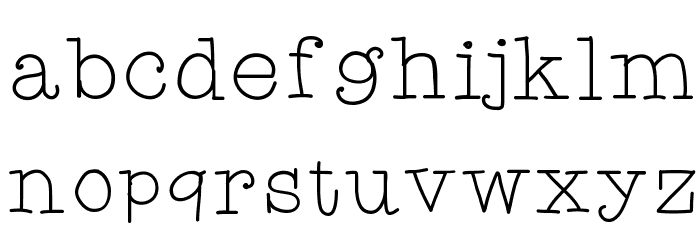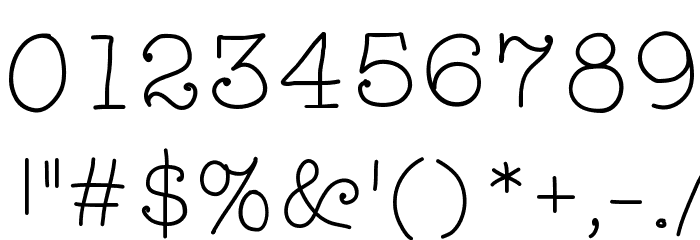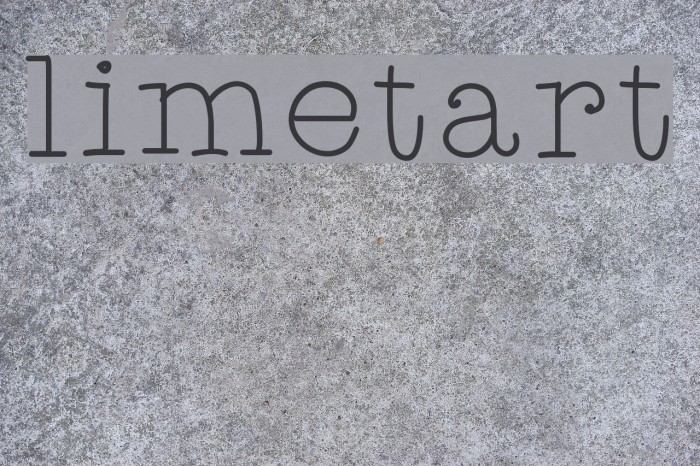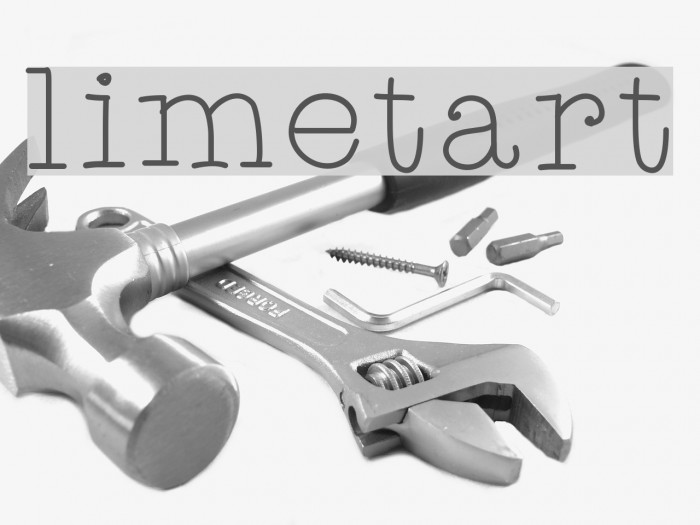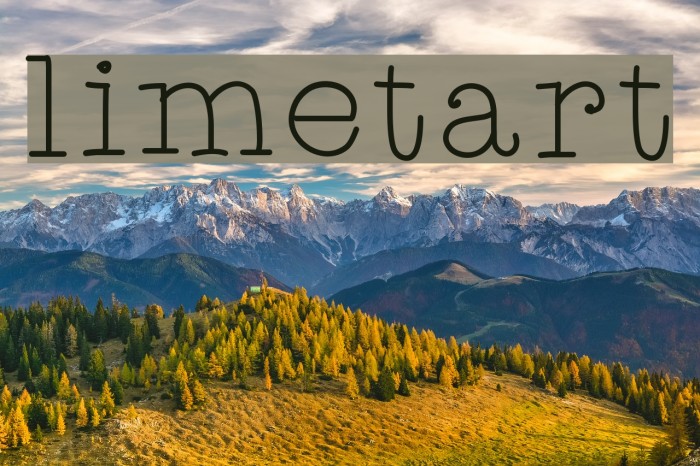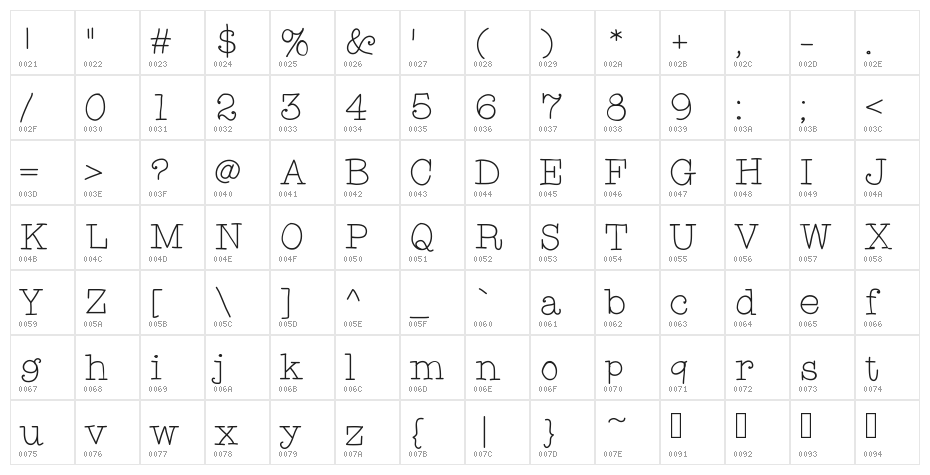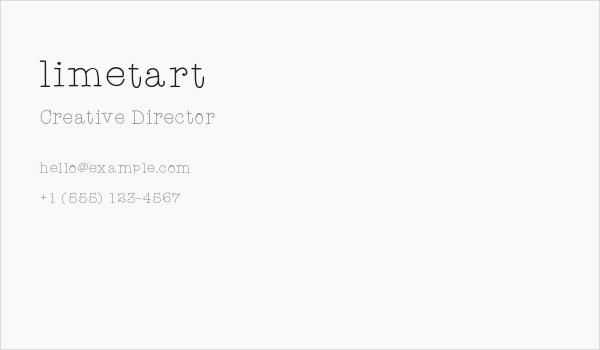
limetart Font
This font features a playful and whimsical style with a handwritten appearance. The characters are slightly irregular, giving it a casual and friendly feel. The uppercase letters are bold and stand out with a slight slant, while the lowercase letters maintain a consistent flow with rounded edges. The numerals are distinct and easy to read, matching the overall playful aesthetic. Special characters are creatively designed, adding to the font's charm. This font is perfect for projects that require a personal touch, such as invitations, greeting cards, or children's books.
A playful, handwritten-style font with a whimsical and casual appearance.
- Proposed Projects: Ideal for invitations, greeting cards, children's books, and playful branding.
- Overall Style: Whimsical
- Use Case: Headlines, Logos, Invitations